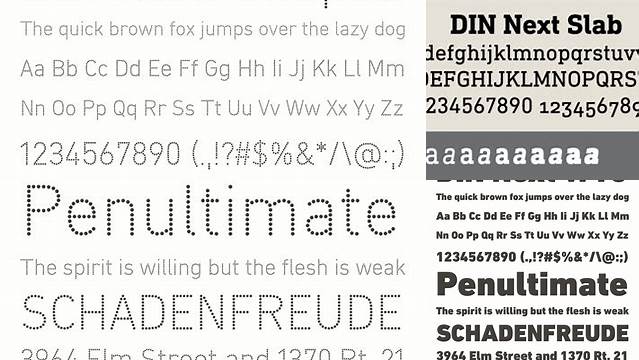
DIN Next Decorative Font: Free Download Guide
Let's dive into the world of typography, specifically focusing on the DIN Next Decorative font and how you can snag it for free. Finding the right font can be a game-changer for your projects, and DIN Next Decorative is a fantastic option. This guide will walk you through everything you need to know, from its unique features to where you can download it without spending a dime.
What is DIN Next Decorative?
DIN Next Decorative is a font that stands out due to its modern and geometric design. It's part of the larger DIN Next family, known for its clean lines and versatility. But the Decorative version adds a bit of flair, making it perfect for headlines, posters, and other design elements where you want to make a statement. Its unique letterforms catch the eye and add a touch of sophistication to any project. DIN Next Decorative strikes a balance between readability and visual appeal, which is why it's a favorite among designers. You can use this font to bring a modern feel with a geometric touch to your design, which makes it suitable for many purposes.
Why Choose DIN Next Decorative?
Choosing the right font can significantly impact the overall look and feel of your design. DIN Next Decorative offers a unique blend of functionality and aesthetics. Its clean, geometric structure ensures readability, while its decorative elements add a touch of personality. This font is versatile enough to be used in various contexts, from branding and advertising to web design and print materials. Whether you're creating a sleek, modern logo or a bold, eye-catching poster, DIN Next Decorative can help you achieve your desired effect. One of the reasons to choose this font is because it looks modern. So, what are you waiting for? Choose DIN Next Decorative right now to make a change to your design.
Key Features of DIN Next Decorative
When considering a font, it's essential to understand its key features. DIN Next Decorative boasts several characteristics that make it a standout choice. Its geometric design, characterized by clean lines and precise angles, gives it a modern and sophisticated look. The decorative elements, such as stylized serifs and unique letterforms, add a touch of personality and visual interest. The font also offers excellent readability, ensuring that your message is clear and easily understood. Additionally, DIN Next Decorative is available in various weights and styles, providing you with the flexibility to create a wide range of designs. These features combine to make DIN Next Decorative a versatile and powerful tool for any designer.
How to Identify DIN Next Decorative
Identifying a specific font can sometimes be tricky, but there are a few key characteristics that make DIN Next Decorative recognizable. Look for its distinct geometric structure, clean lines, and stylized serifs. The letterforms often have unique details that set them apart from other fonts. Additionally, pay attention to the overall balance and readability of the text. DIN Next Decorative typically has a modern and sophisticated appearance. If you're unsure, you can use online font identification tools or consult with a typography expert. Knowing how to identify this font will help you ensure you're using the correct typeface for your projects. By recognizing its key features, you can confidently incorporate DIN Next Decorative into your designs.
DIN Next Decorative vs. Other Fonts
When comparing DIN Next Decorative to other fonts, it's essential to consider its unique qualities. While many fonts offer similar geometric designs, DIN Next Decorative stands out due to its specific decorative elements and overall balance. Compared to more traditional fonts, it has a modern and contemporary feel. In contrast to overly stylized fonts, DIN Next Decorative maintains excellent readability. Its versatility also sets it apart, as it can be used in a wide range of design contexts. When choosing between fonts, consider the specific needs of your project and how well DIN Next Decorative aligns with your desired aesthetic. Also consider the purpose of your design. Will it be a serious theme or a more relaxed theme? Those considerations can help you in choosing the right font.